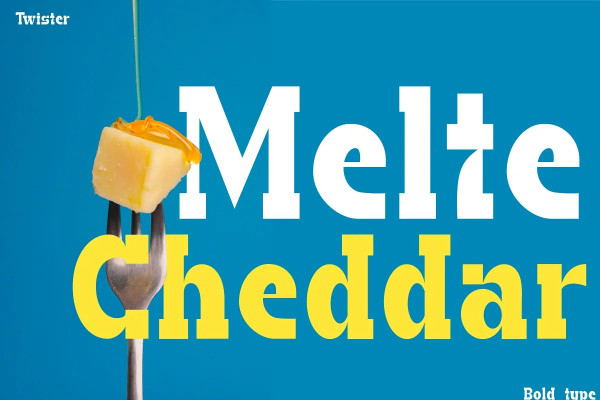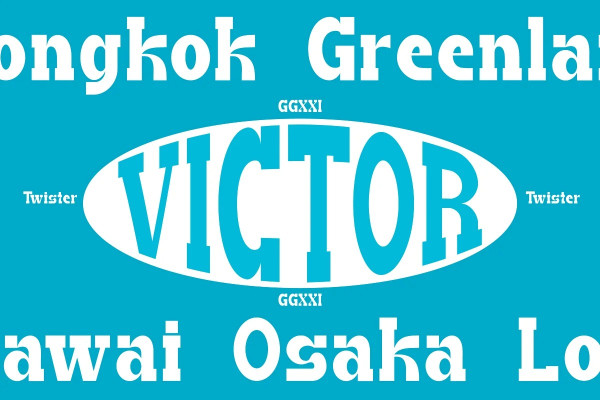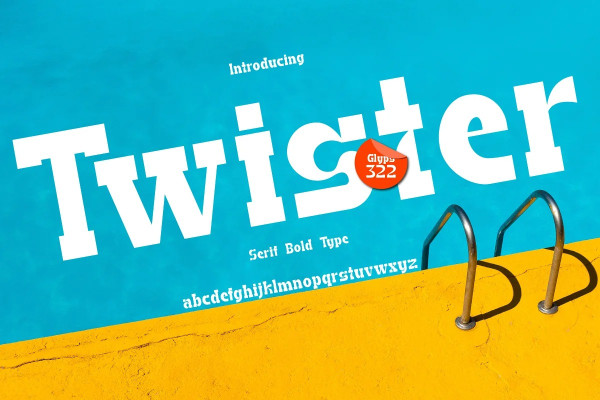
Twister Font
Twister Font which has a strong and funny looking design. The font looks like serif but thick so it seems more funny. Twister supports 69 languages ​​that you can use in multilingual designs, and is suitable for use in various media, book covers, posters, typography, promotions and other digital media.